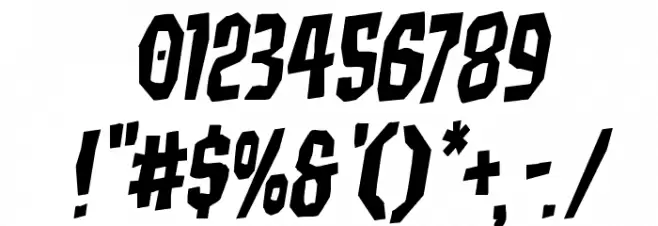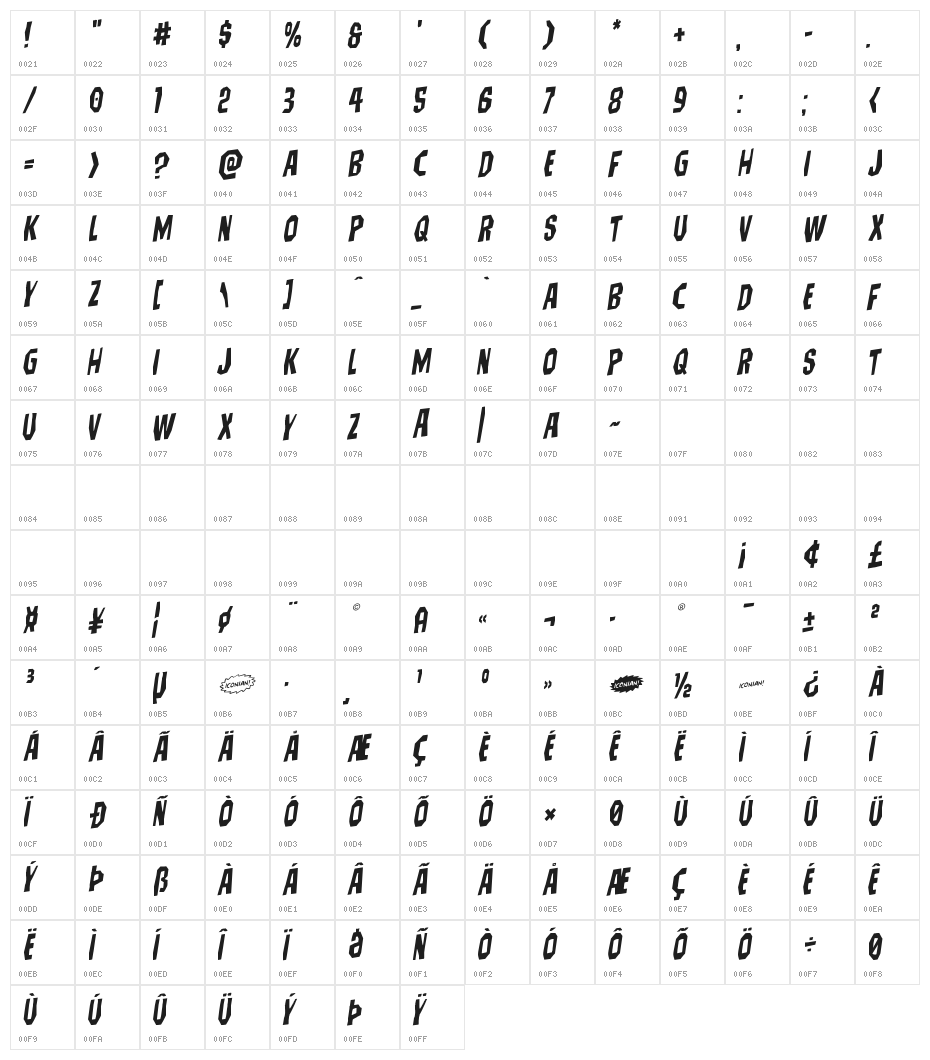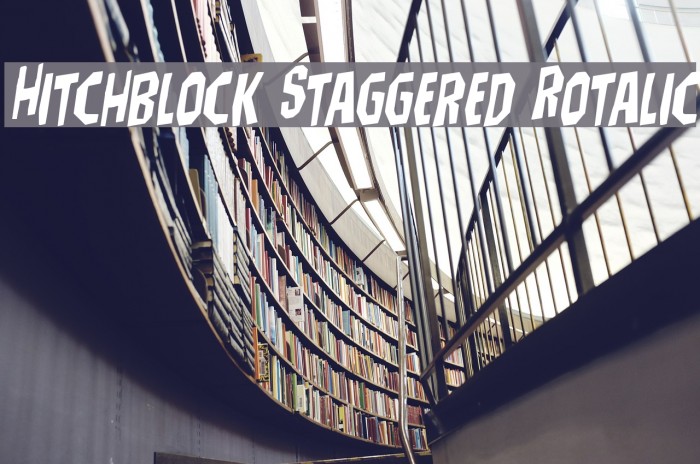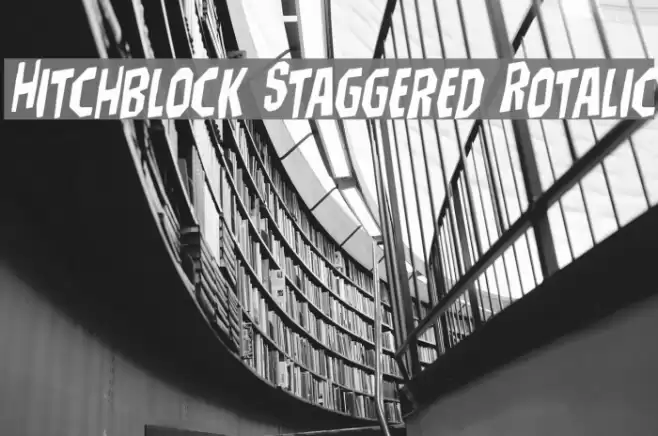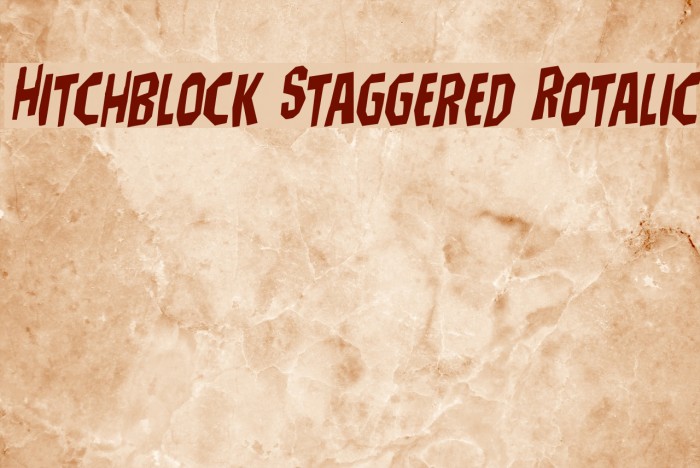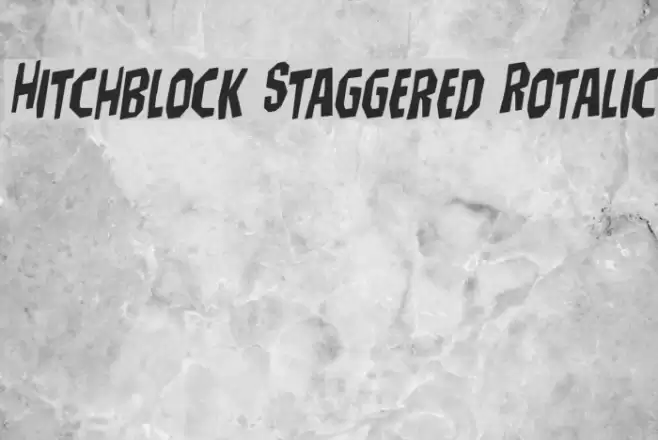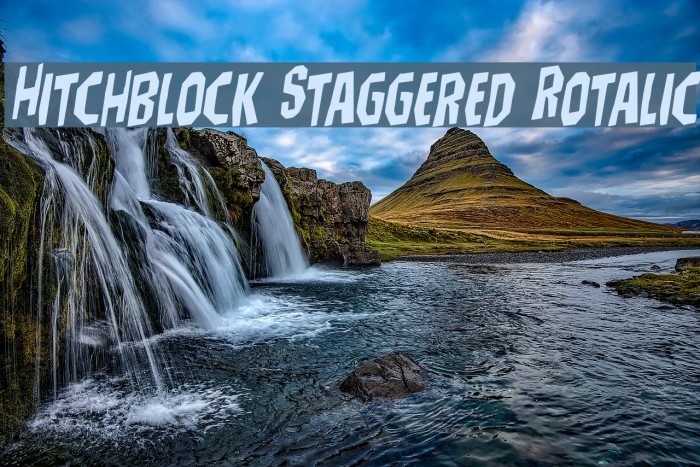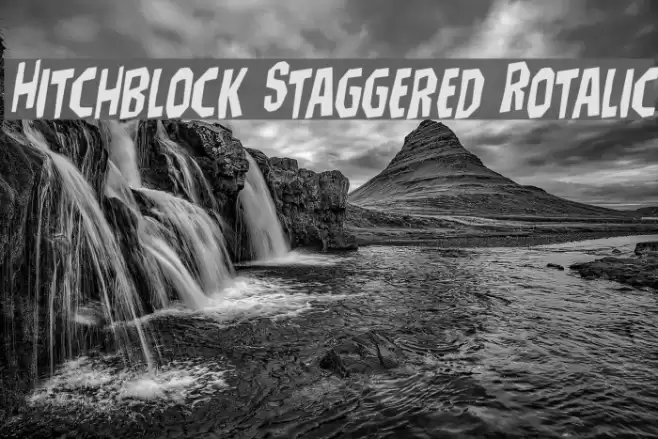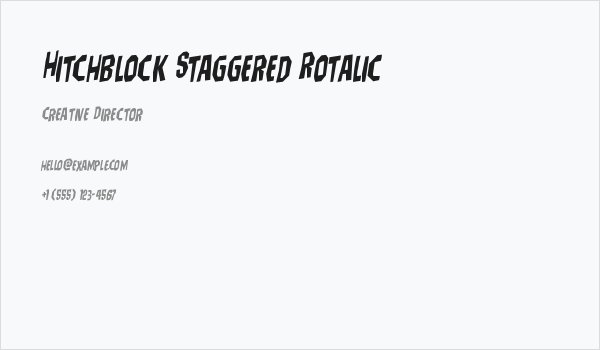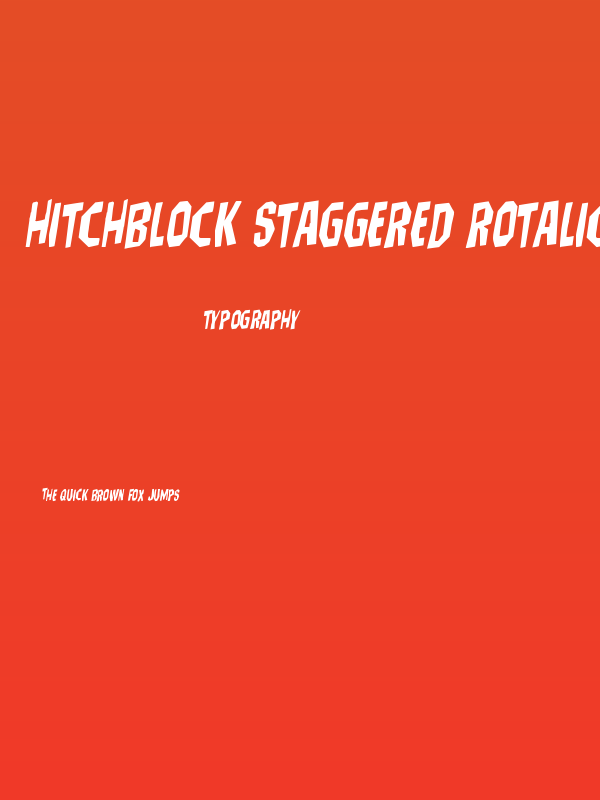
Hitchblock Staggered Rotalic Font
Hitchblock Staggered Rotalic Description
This font features a bold and dynamic design with a staggered, italicized appearance that gives it a sense of movement and energy. The characters are sharply angled, creating a striking visual impact. The uppercase and lowercase letters maintain a consistent style, with each character exhibiting a unique, angular form. The numbers and special characters are equally bold, ensuring a cohesive look across all text elements. This font's distinctive style makes it ideal for projects that require a strong, attention-grabbing typeface.
| Proposed Projects | Ideal for posters, logos, sports branding, and dynamic headlines. |